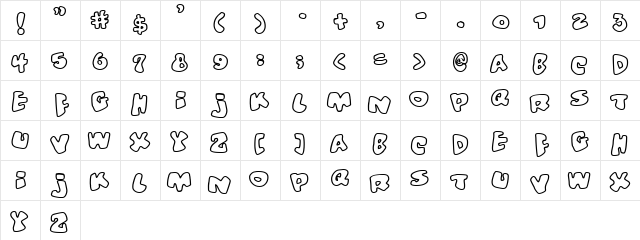
Vitamin outlined Regular
Design Context for Vitamin outlined Typeface
Vitamin outlined brings ornamental detail and strong personality to headlines and identities, where visual impact matters more than quiet functionality.
Font Pairing: Pair with a clean neutral sans-serif for body copy to let Vitamin outlined's character lead without overwhelming the composition.
Pro Tip: Use Vitamin outlined exclusively at display sizes — it was designed to be seen, not read at length. Let a neutral companion handle body copy.